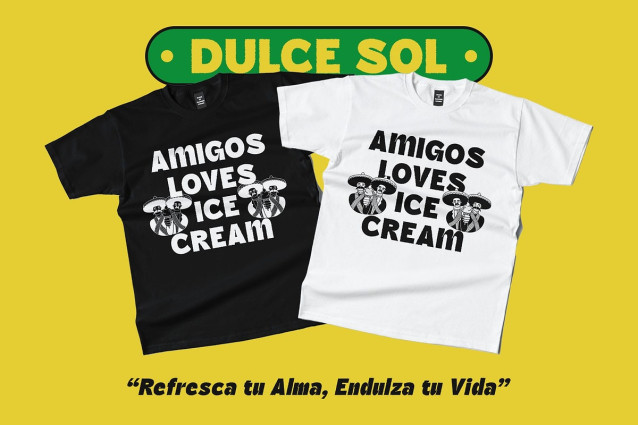
Marsen Rough Font
Marsen Rough is a modern sans-serif font that stands out with its bold, chunky letterforms and distinctive inktrap features. These inktraps not only enhance the font’s visual intrigue but also improve its structure, making it ideal for both display and impact-driven designs.
Funky Vibe with a Creative Edge With its playful, funky style, Marsen Rough brings energy and personality to any project. The letterforms are dynamic and expressive, giving your typography a fresh and unconventional look. It’s perfect for creatives who want to make a bold statement and capture attention in a unique way.
Rough Texture for Raw Character The added rough texture gives Marsen Rough a tactile, handcrafted feel that elevates its individuality. This rugged finish adds grit and authenticity, reinforcing the font’s creative essence and making it perfect for designs that value originality and artistic flair.
Perfect for Eye-Catching and Creative Projects Whether you’re working on a music poster, an experimental branding concept, or a bold headline, Marsen Rough is designed to shine. It thrives in applications where boldness, creativity, and uniqueness are key. Its blend of funky energy, modern structure, and textured edge ensures your work leaves a lasting impression.